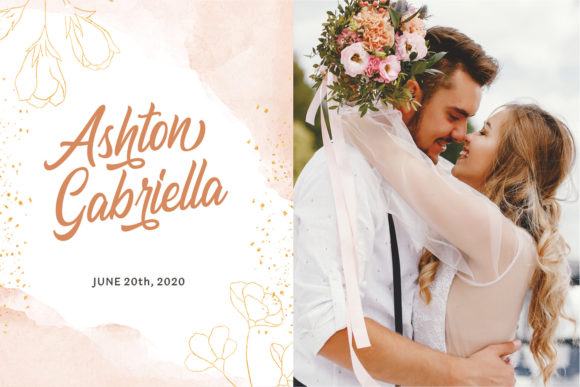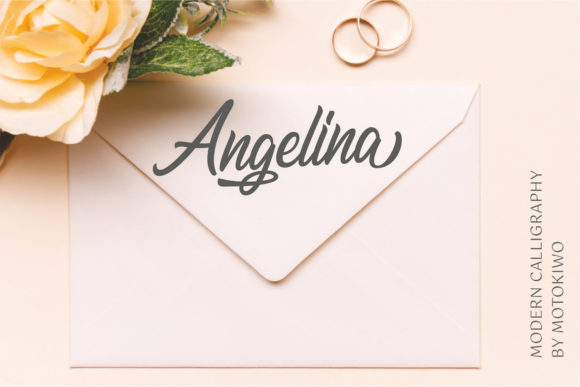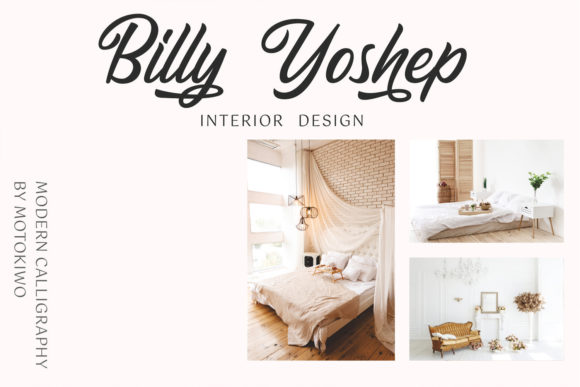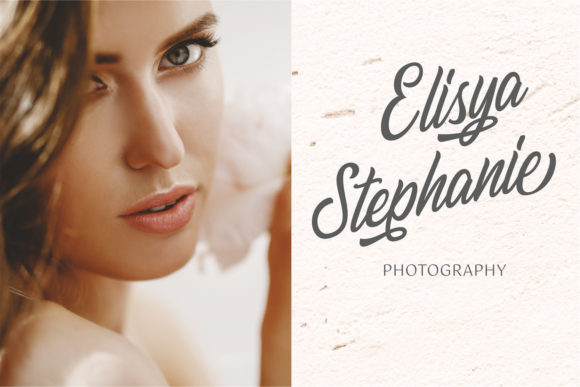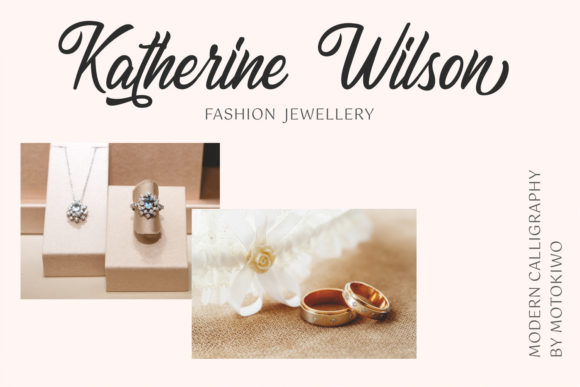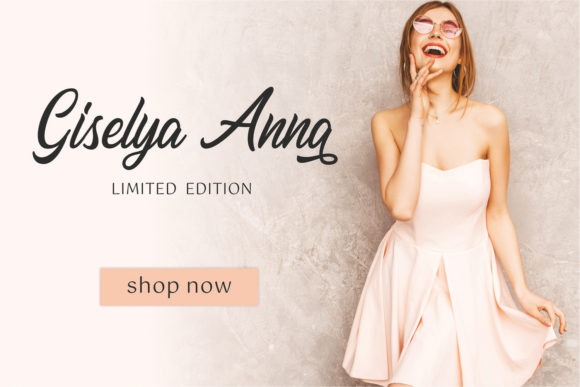
Dhealova Font: The Sweet and Romantic Handwritten Font for Designers and Crafters
Are you a designer or crafter looking for a font that exudes sweetness and romance? Look no further than Dhealova Font! This beautiful handwritten font is perfect for creating stunning wedding invitations, posters, logos, and so much more. In this article, we’ll dive into the world of Dhealova Font and explore its features, uses, and benefits.
What is Dhealova Font?
Dhealova Font is a sweet and romantic handwritten font that is designed to capture the essence of love and elegance. Its flowing curves and delicate strokes make it perfect for creating beautiful and eye-catching designs. Whether you’re a professional designer or a DIY crafter, Dhealova Font is sure to inspire your creativity and help you create stunning visual content.
Features of Dhealova Font
Dhealova Font comes with a range of features that make it a versatile and user-friendly font. Some of its key features include:
- Handwritten style: Dhealova Font has a beautiful handwritten style that is perfect for creating personal and romantic designs.
- Sweet and romantic: The font’s sweet and romantic feel makes it perfect for wedding invitations, love letters, and other designs that require a touch of elegance.
- Easy to read: Despite its delicate strokes, Dhealova Font is easy to read and understand, making it perfect for body text and headings.
- Multilingual support: Dhealova Font supports multiple languages, making it a great choice for designers and crafters who work with international clients.
Uses of Dhealova Font
Dhealova Font is a versatile font that can be used for a wide range of design projects. Some of its most popular uses include:
- Wedding invitations: Dhealova Font is perfect for creating beautiful and romantic wedding invitations that set the tone for the big day.
- Posters and flyers: The font’s bold and eye-catching style makes it perfect for creating stunning posters and flyers for events, promotions, and more.
- Logos and branding: Dhealova Font can be used to create beautiful and elegant logos and branding materials that reflect a company’s values and personality.
- Stationery and cards: The font’s sweet and romantic feel makes it perfect for creating beautiful stationery and cards for special occasions.
Benefits of Using Dhealova Font
There are many benefits to using Dhealova Font in your design projects. Some of the most significant advantages include:
- Unique and creative designs: Dhealova Font allows designers and crafters to create unique and creative designs that stand out from the crowd.
- Time-saving: The font’s easy-to-read style and versatile features save designers and crafters time and effort in creating beautiful designs.
- Professional-looking designs: Dhealova Font’s elegant and sophisticated style gives designs a professional and polished look that impresses clients and audiences.
Tips for Using Dhealova Font
To get the most out of Dhealova Font, here are some tips to keep in mind:
- Pair with complementary fonts: Pair Dhealova Font with complementary fonts to create visually appealing and harmonious designs.
- Experiment with colors and textures: Experiment with different colors and textures to add depth and interest to your designs.
- Use for headlines and body text: Use Dhealova Font for both headlines and body text to create cohesive and elegant designs.
Dhealova Font is a beautiful and versatile handwritten font that is perfect for designers and crafters who want to create sweet and romantic designs. With its flowing curves, delicate strokes, and easy-to-read style, Dhealova Font is sure to inspire creativity and help you create stunning visual content. Whether you’re designing wedding invitations, posters, logos, or stationery, Dhealova Font is a great choice for any project that requires a touch of elegance and sophistication.